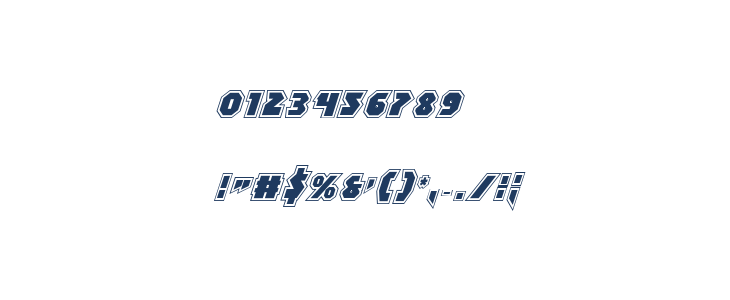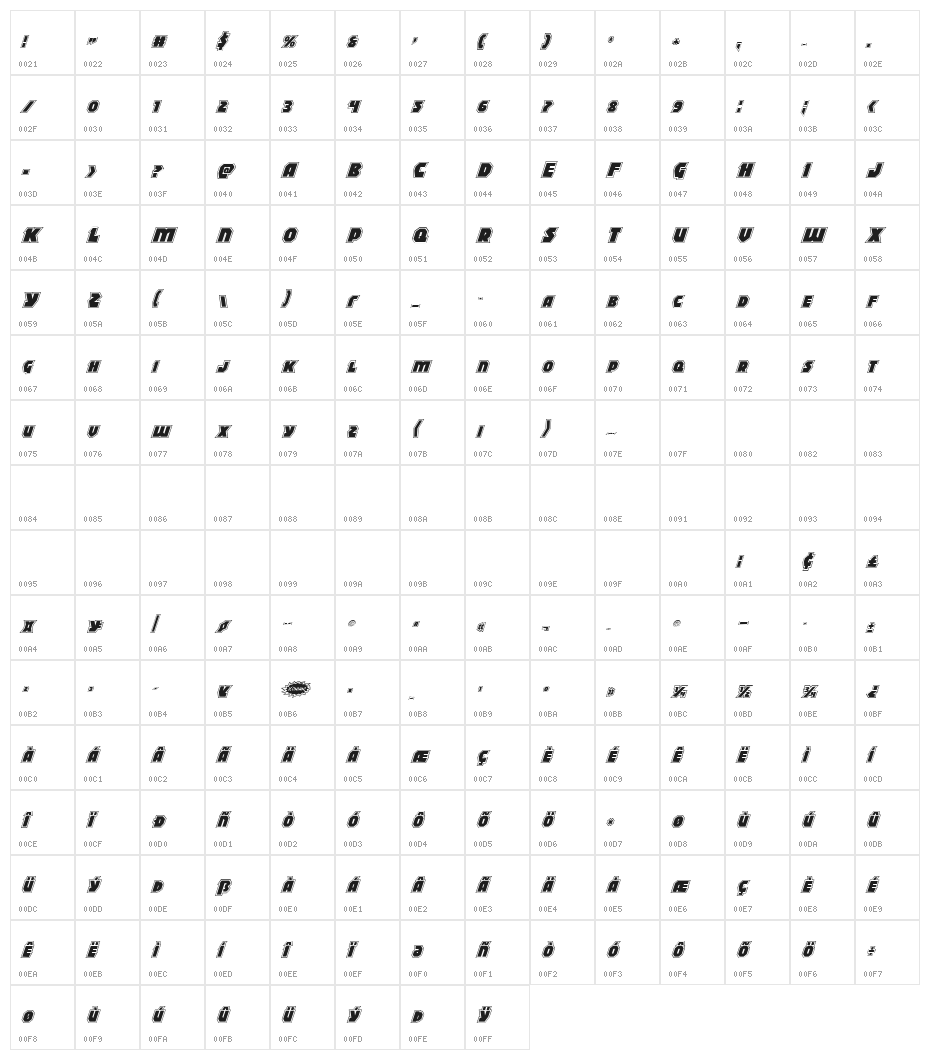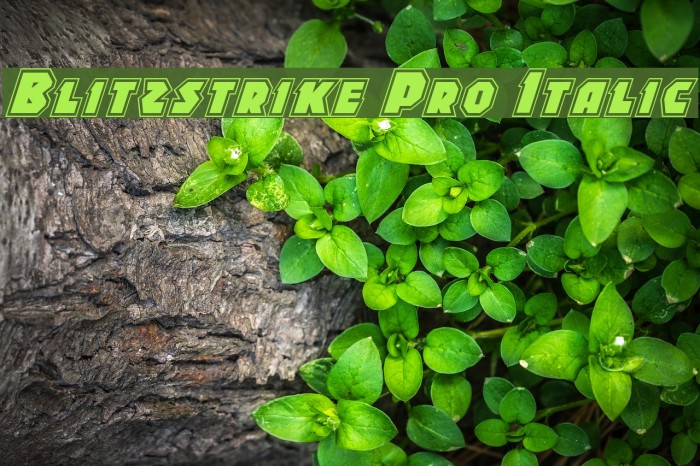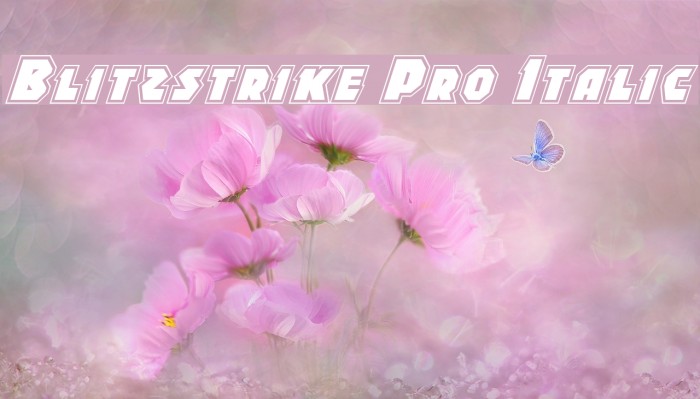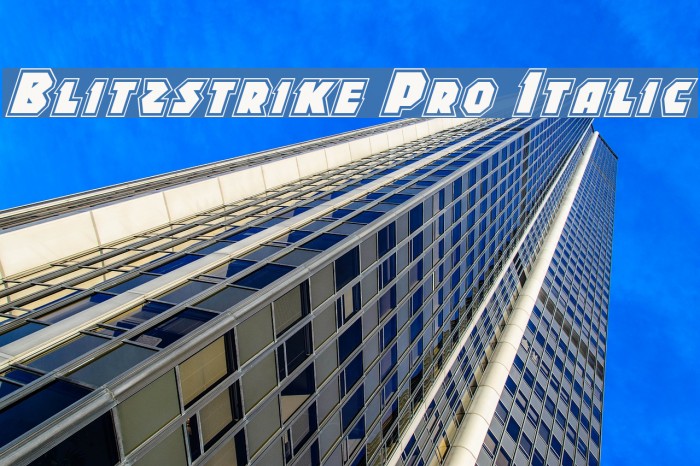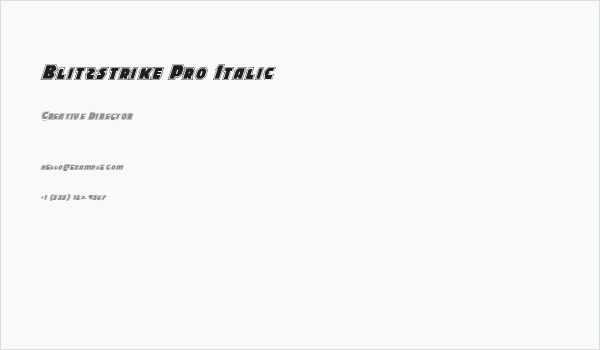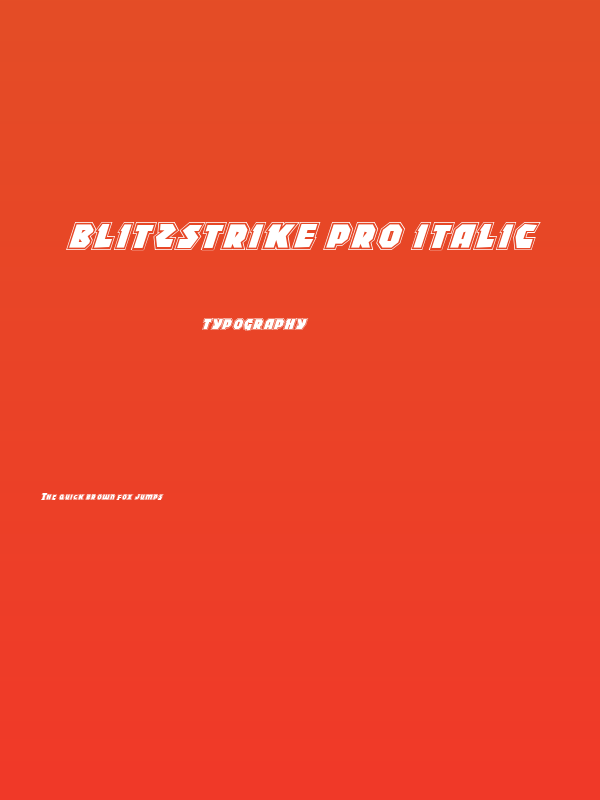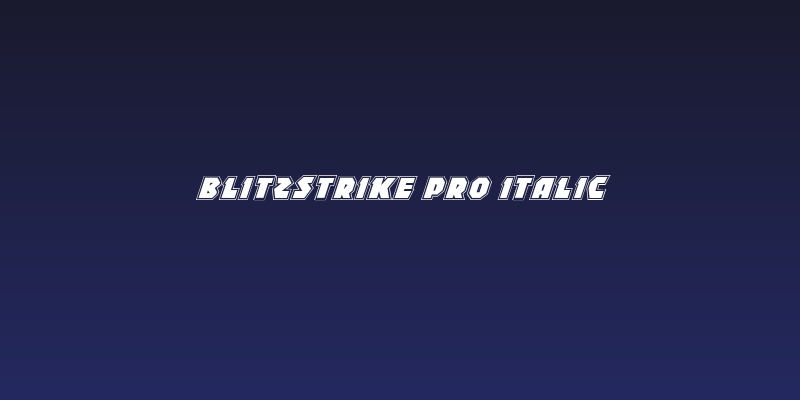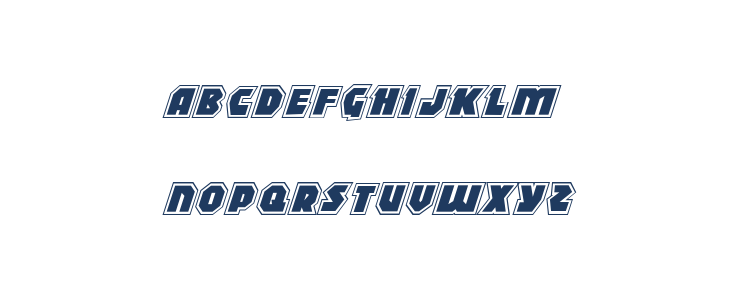
Blitzstrike Pro Italic Font
Blitzstrike Pro Italic Description
This font features a bold, dynamic style with a strong geometric influence. The characters are italicized, giving a sense of motion and energy. Each letter is outlined, enhancing its boldness and creating a striking visual impact. The angular design and sharp edges contribute to a futuristic and aggressive appearance. The font maintains consistent thickness throughout, with medium contrast between strokes. It is well-suited for attention-grabbing headlines and logos, where a powerful and modern aesthetic is desired. The spacing between characters is tight, emphasizing the compact and robust nature of the design.
| Proposed Projects | Ideal for sports branding, video game titles, action movie posters, and dynamic logo designs. |